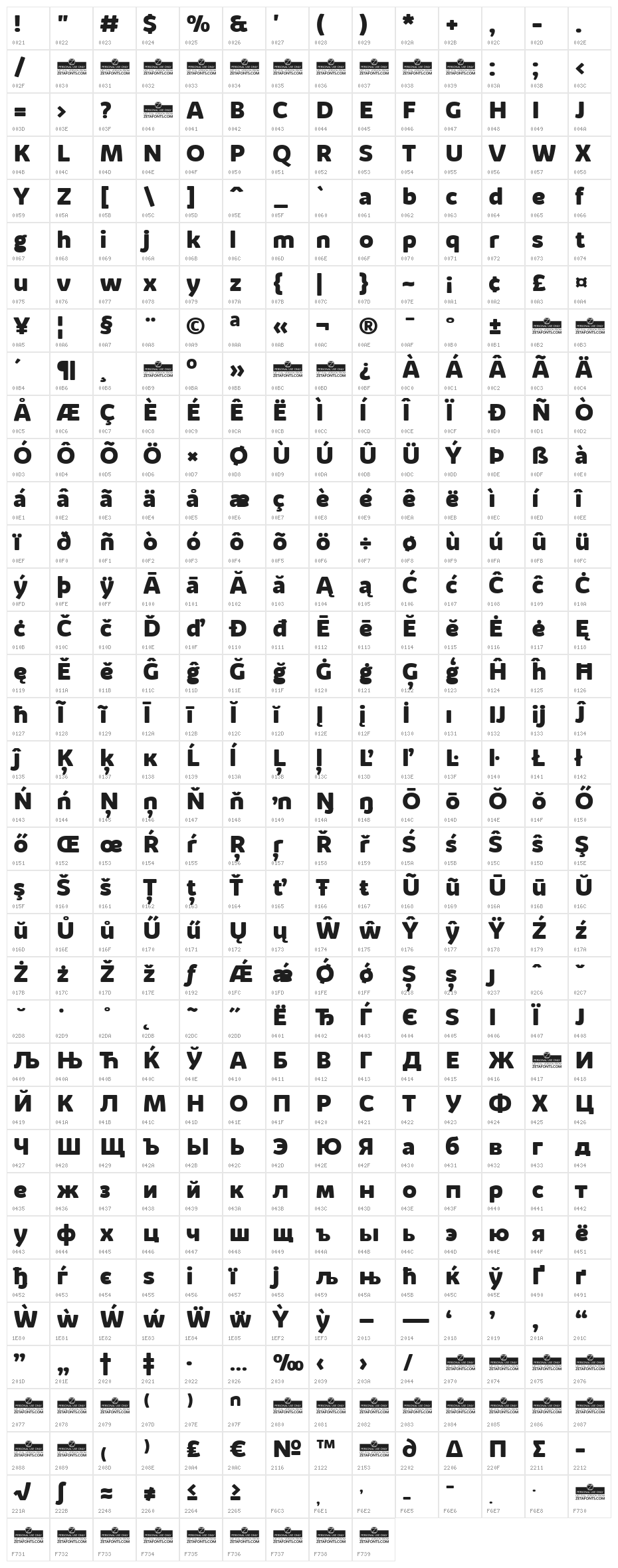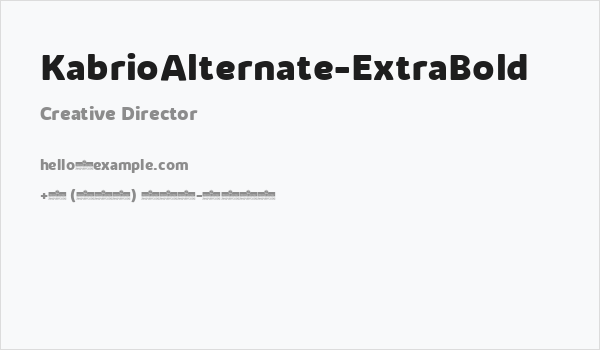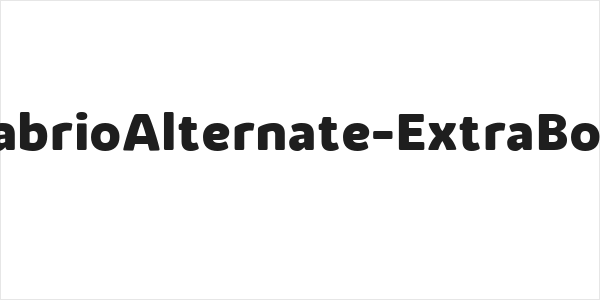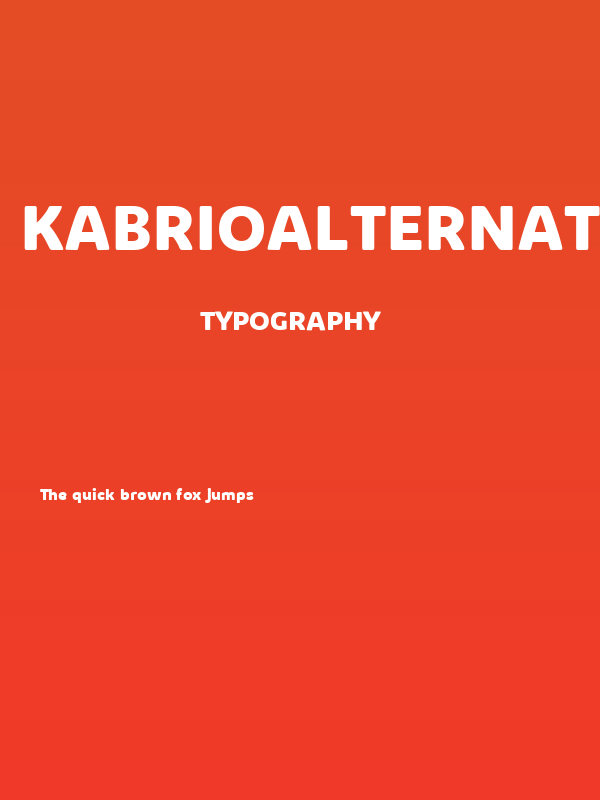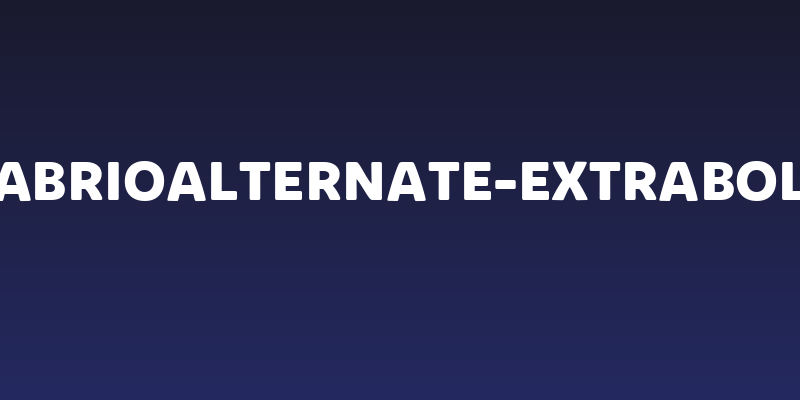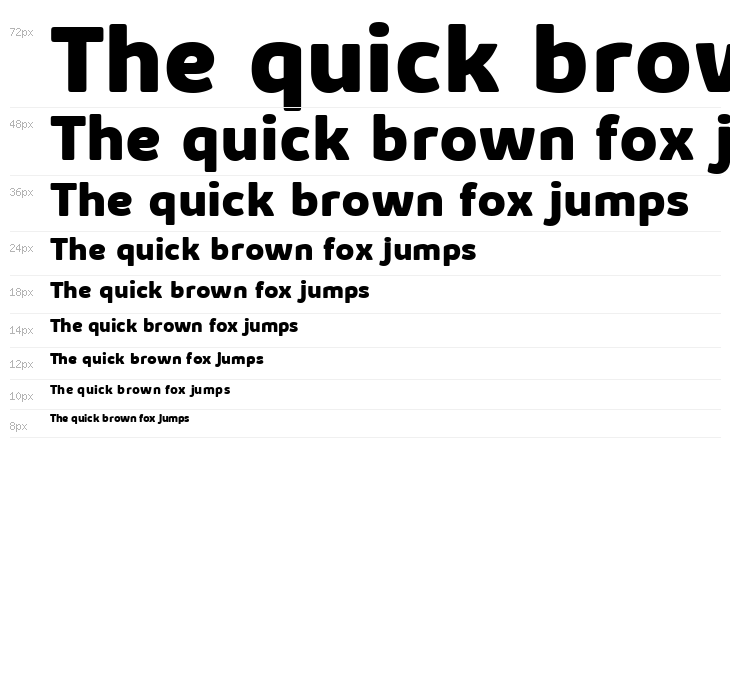
KabrioAlternate-ExtraBold Font
KabrioAlternate-ExtraBold Description
This typeface features a bold and robust design, characterized by thick strokes and a strong presence. The uppercase and lowercase letters are well-proportioned, offering a sense of balance and stability. The characters are rounded with smooth curves, giving a friendly and approachable feel. The numerals and special characters maintain the same boldness, ensuring consistency across all glyphs. This font is highly legible, making it suitable for various display purposes.
| Proposed Projects | Ideal for branding, headlines, posters, and advertising where a strong visual impact is needed. |